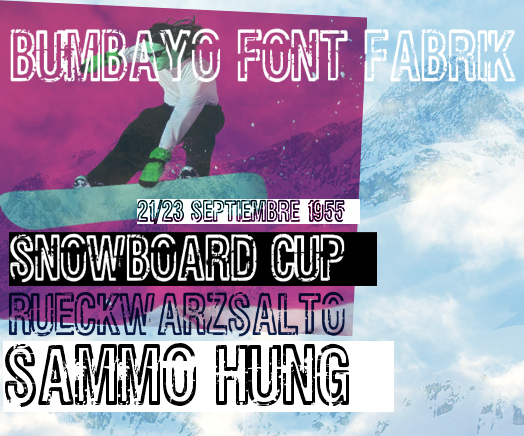
Rueckwarzsalto by Bumbayo is a free eroded outline display font with tall, tightly built capitals and a blunt industrial silhouette. Ragged edges, chipped interiors, and scattered scratches give the letters the look of worn paint or battered screen printing.
As lettering that can double as a battered sign, it suits punk concert posters, skate merchandise, and packaging for hot sauce or craft beer. These uses share rough, hand-printed surfaces, and the broken outlines let the type become part of distressed artwork rather than a clean label.